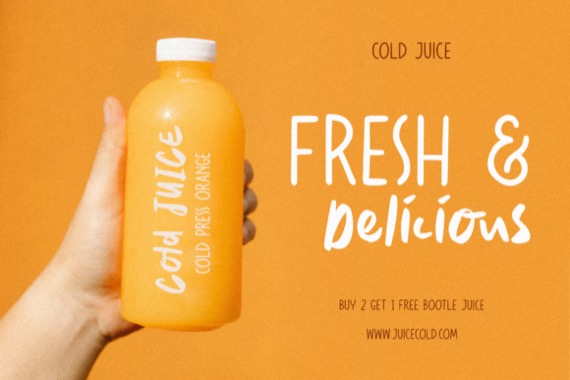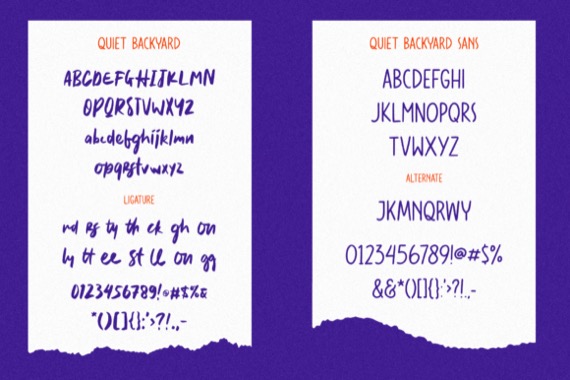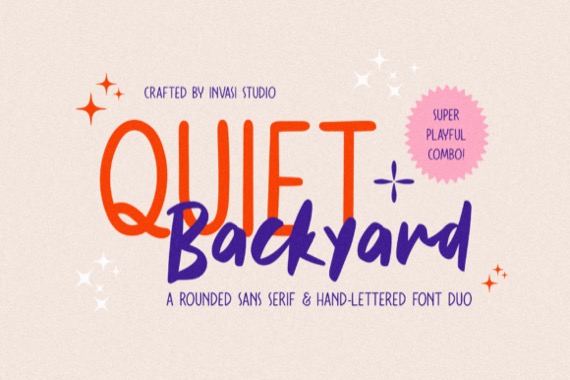
Quiet Backyard is a lovely duo font (script and sans serif). It can easily be matched to an incredibly large set of projects, so add it to your creative ideas and notice how it makes them stand out!
Quiet Backyard Sans Script Font Duo